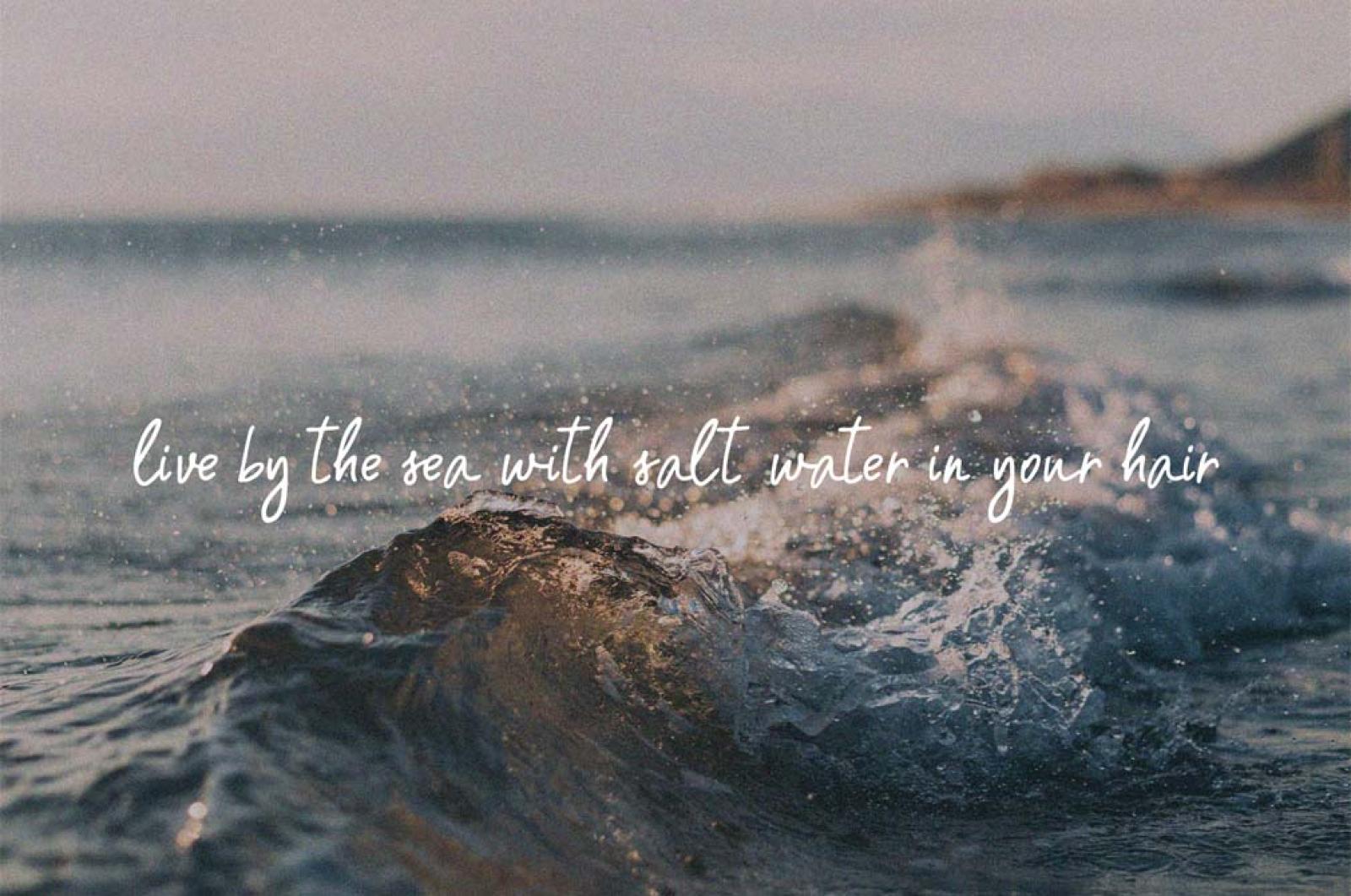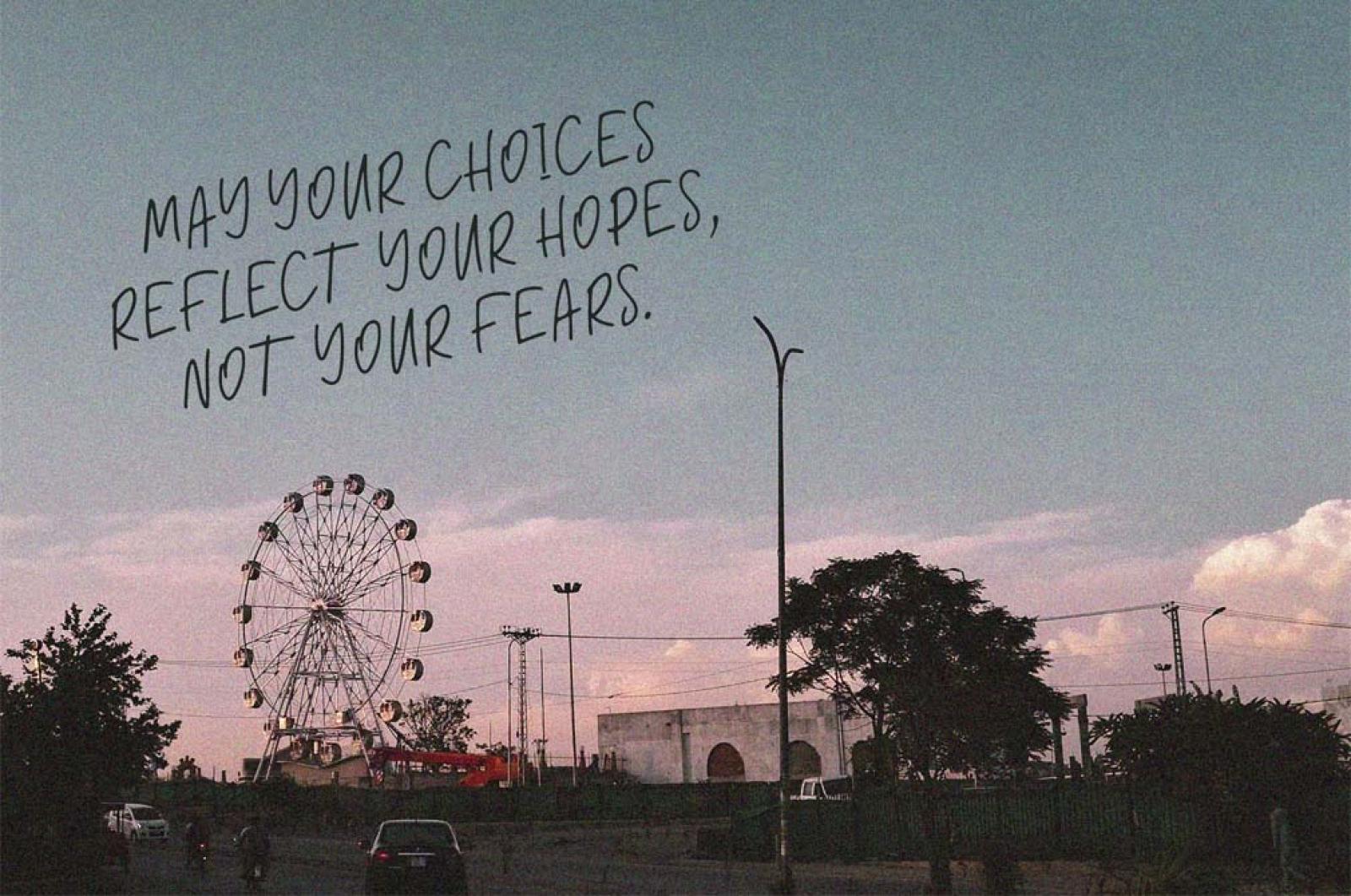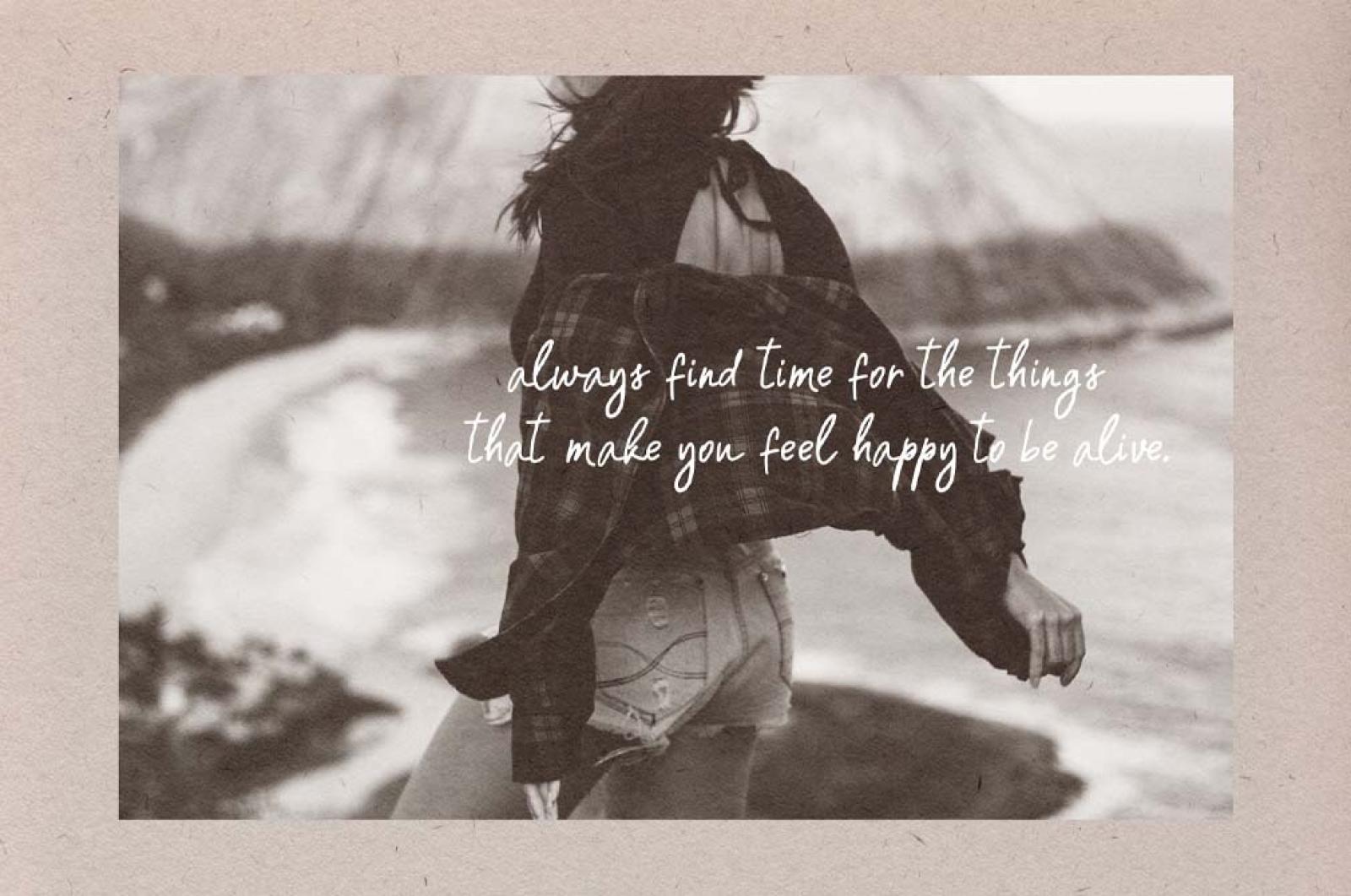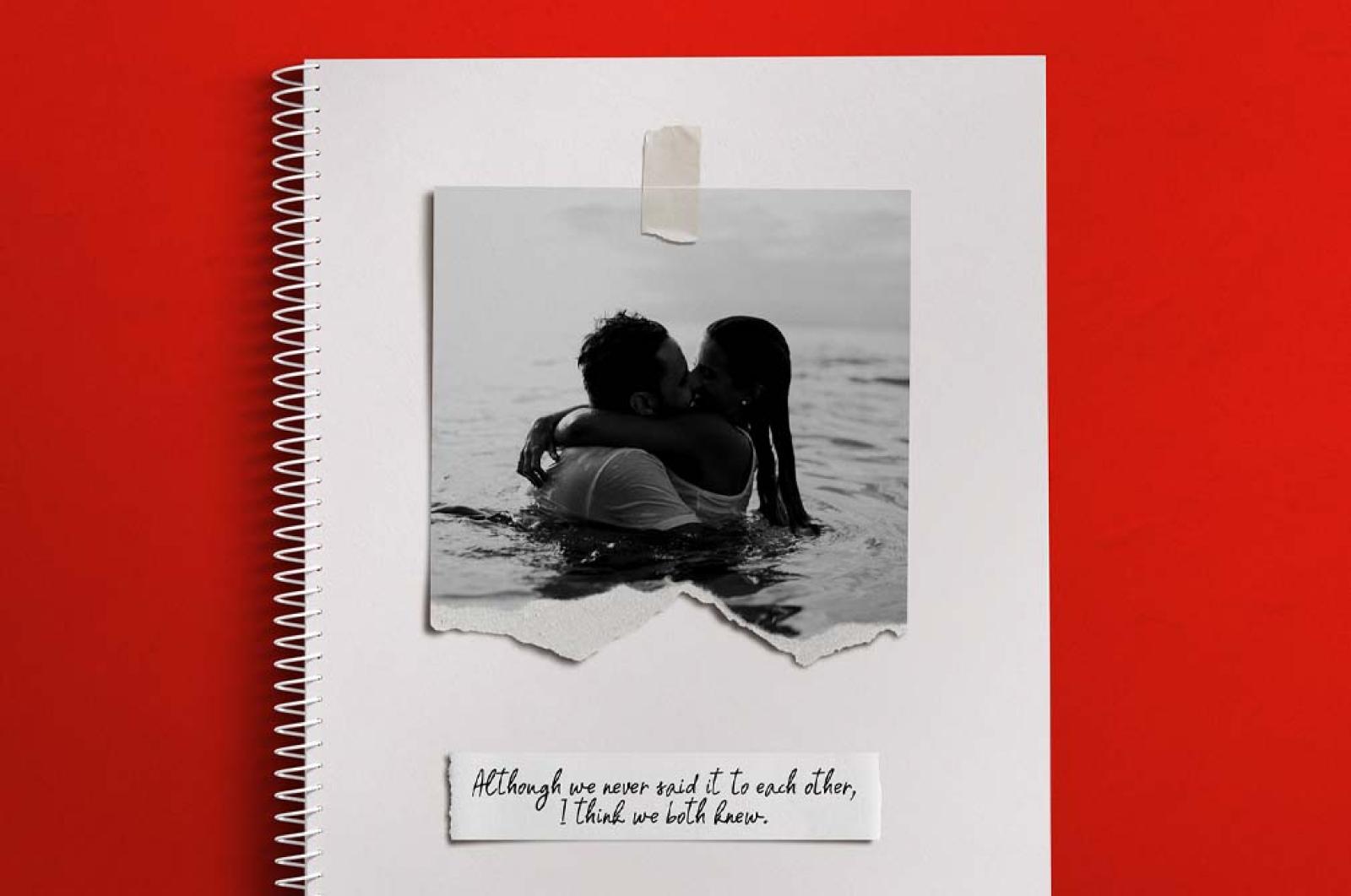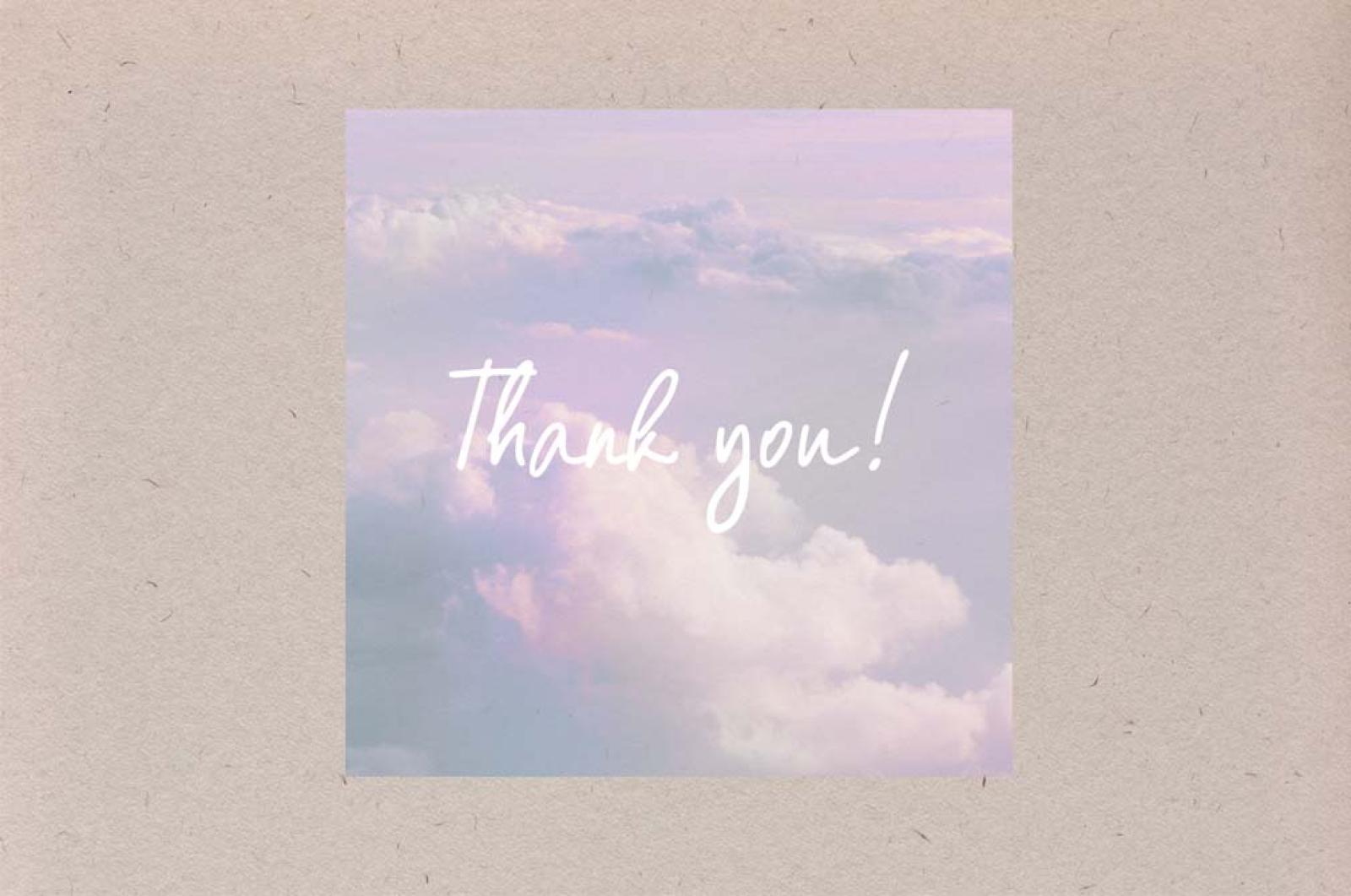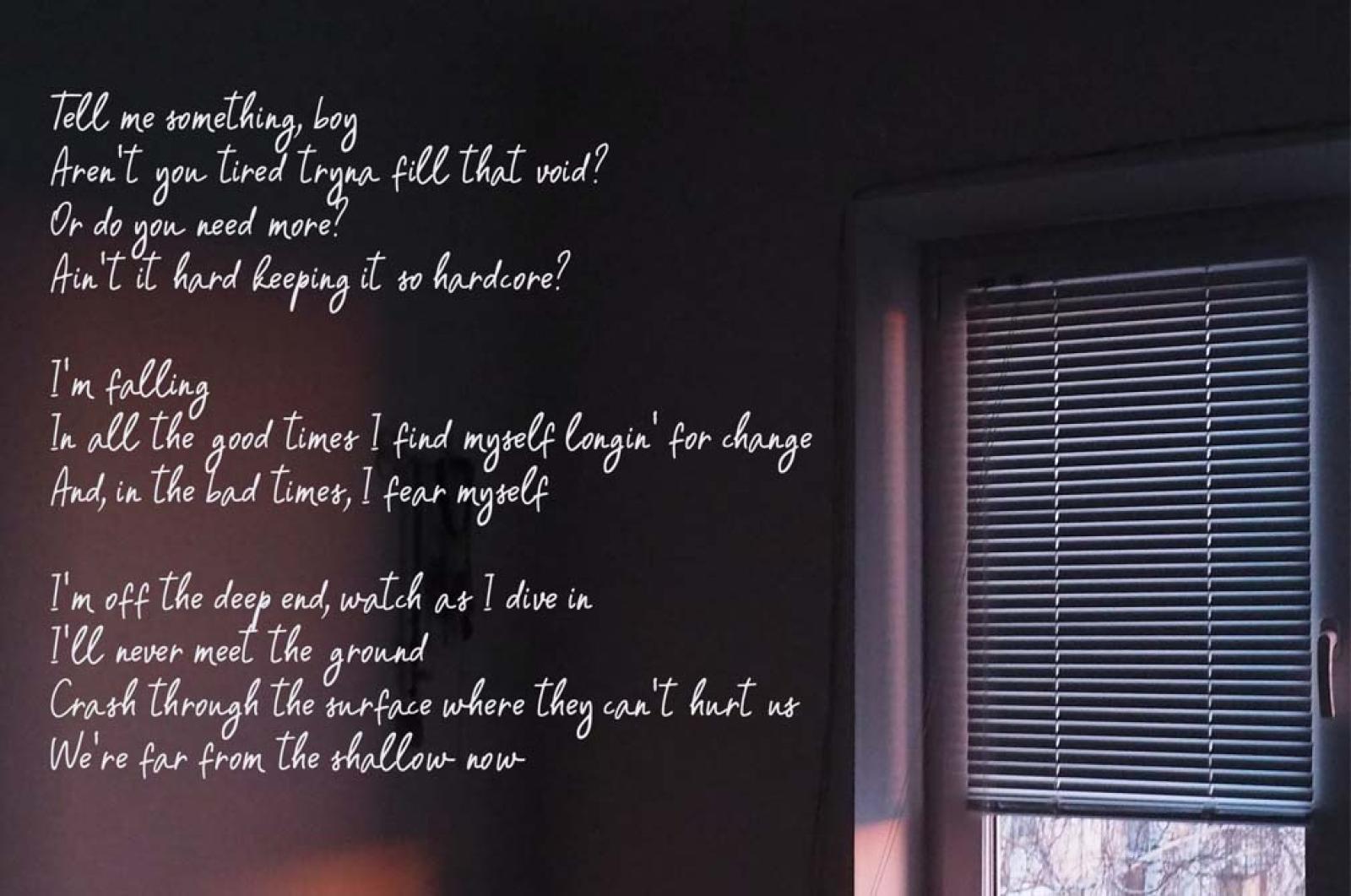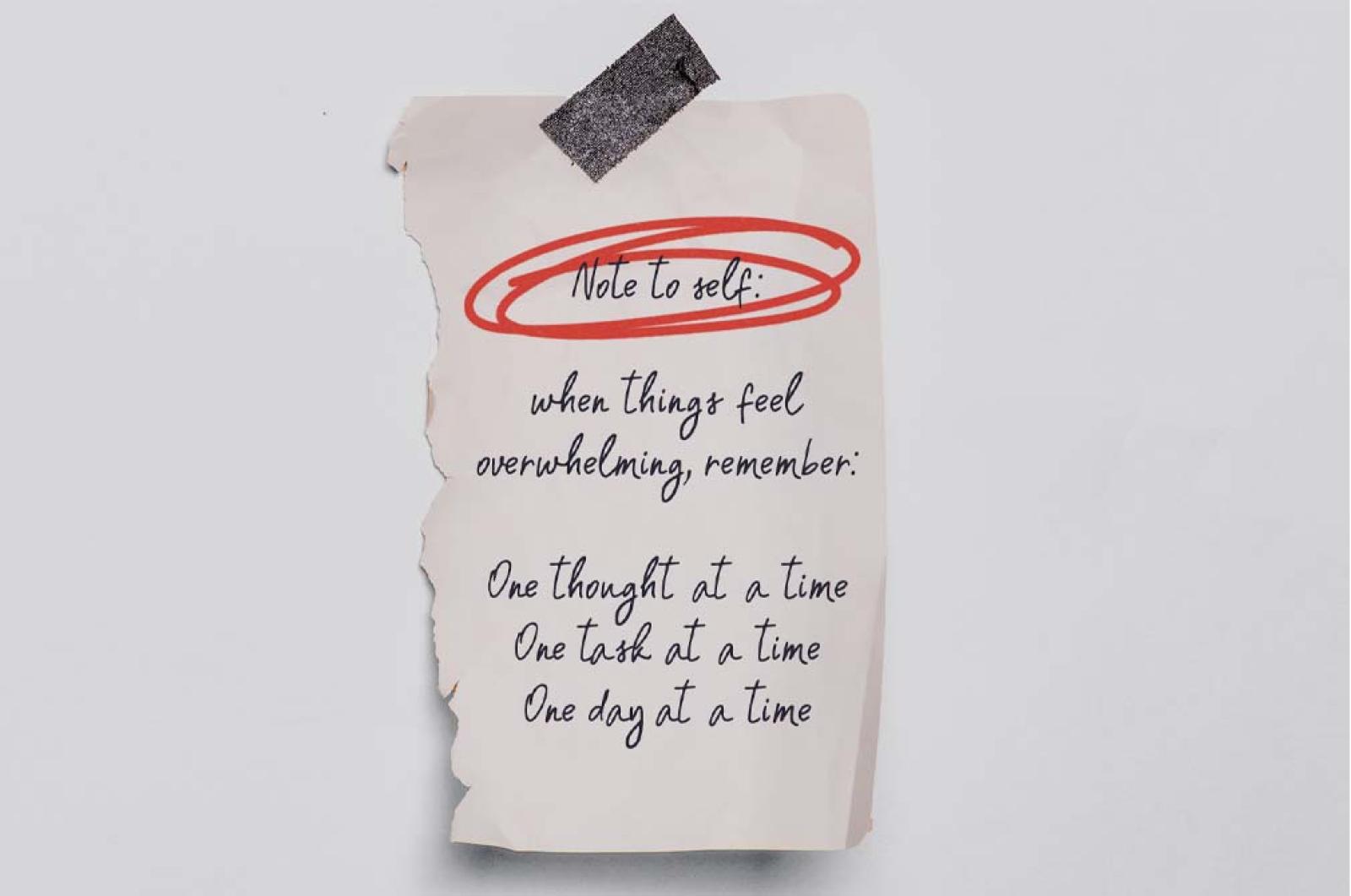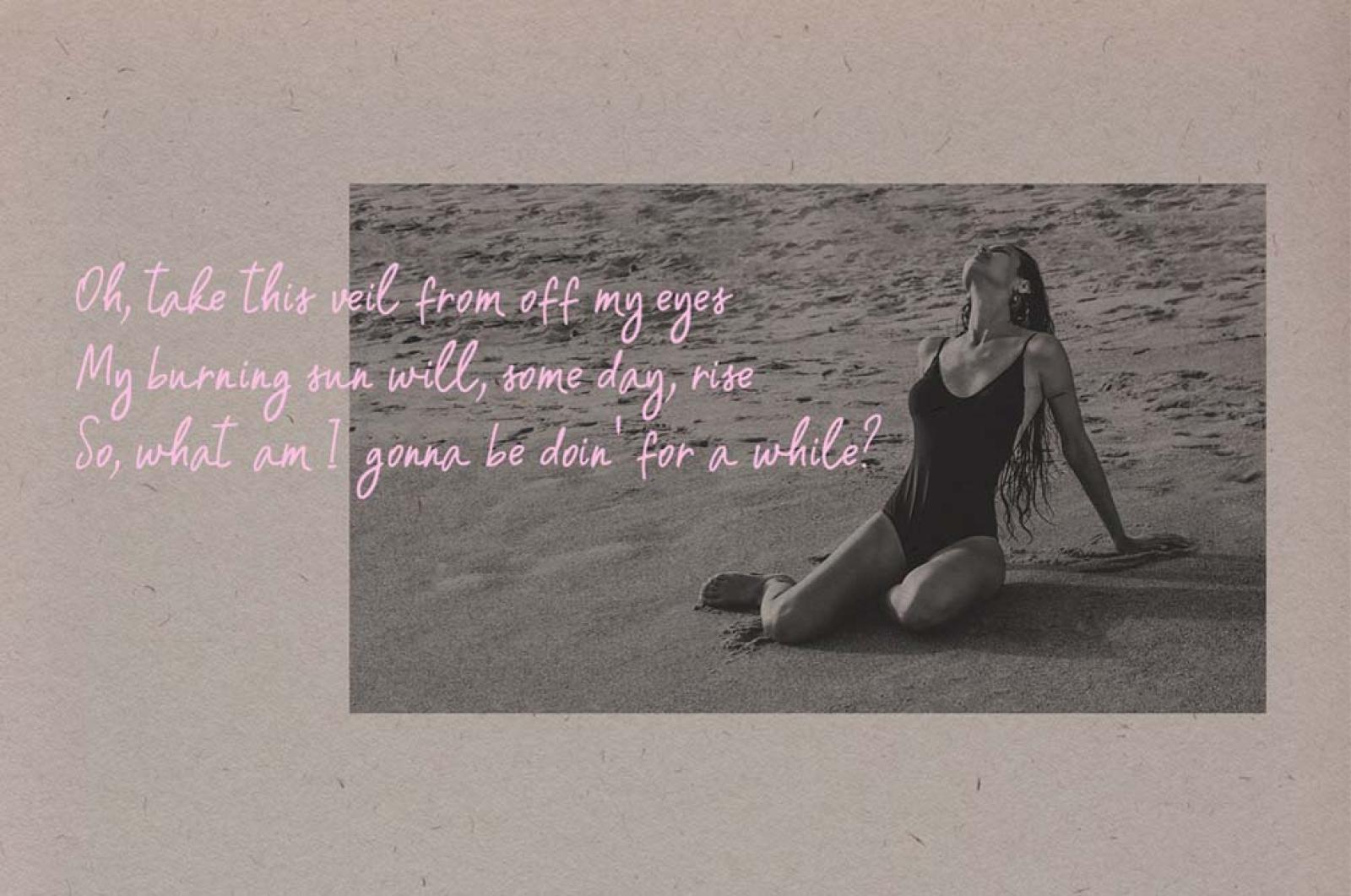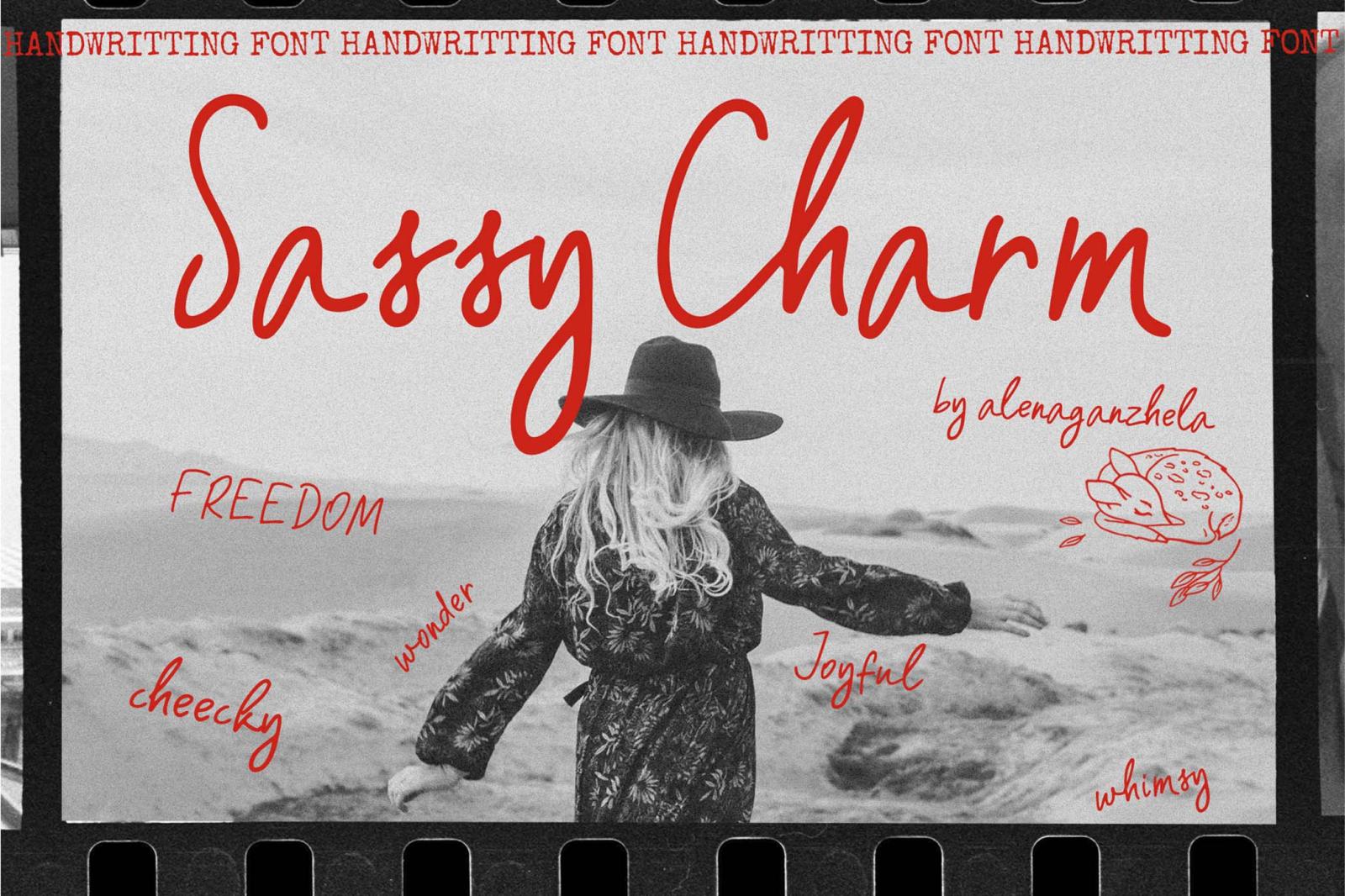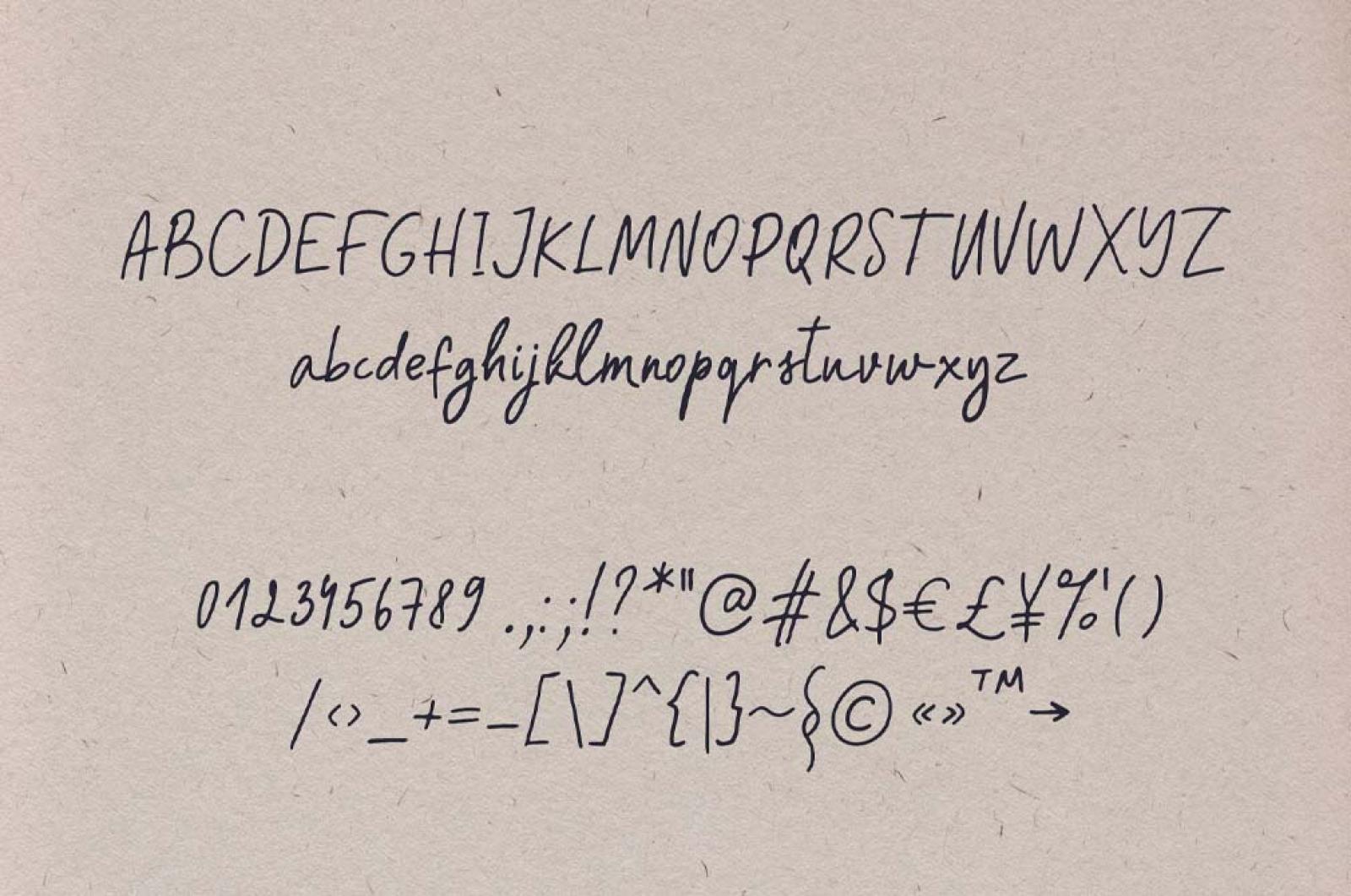
SASSY CHARM — Handwriting Font
There’s something undeniably enchanting about handwritten notes. It’s like peeking in one’s life captured on paper. SASSY CHARM is a font that embodies this spirit, a lively dance of letters that feels like a song of joy and freedom.
SASSY CHARM is a playful, handwritten font that brings warmth and authenticity into your words with an easy grace. Designed to convey a relaxed and whimsical feel, it includes upper and lowercase letters, punctuation marks, and numerals. Available in the most popular file formats, this font is your companion in crafting heartfelt messages and personal notes. Perfect for journal entries, love letters, and any project that seeks that personal touch.